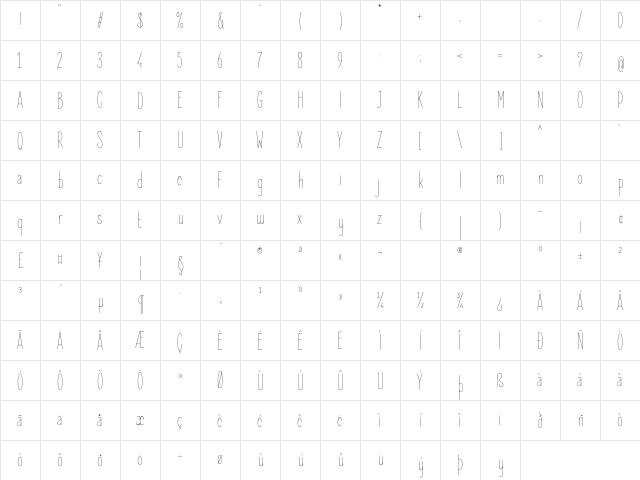
Elegant Sans Thin
| Foundry | Darwinoo |
| Designer | Darwinoo |
Design Context for Elegant Sans Typeface
Elegant Sans is a composed and adaptable typeface that performs quietly and consistently across a wide range of design contexts. The delicate stroke weight brings airiness and refinement to layouts.
Pro Tip: Pair Elegant Sans with a font of contrasting weight or personality to build a more expressive typographic hierarchy.